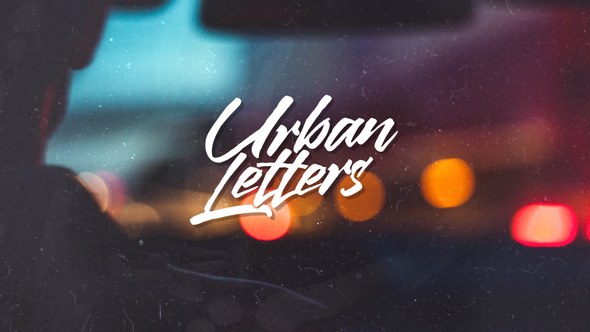
Urban - Animated Typeface
Urban is an animated Typeface that fits to many styles and is easy to work with. In the preview you see several examples of usage. If you like to buy the title projects shown in the preview, check out Urban+
Unlike other Animated Typefaces, you don’t need to drag each letter on it’s own into the timeline, you can actually write your text on a controls-layer and get the result right away. All driven by expressions. Also, to make it even more comfortable to work with, this project is compatible to the Script Characteristic
- Full Latin alphabet (Uppercase only)
- Digits 0-9
- Special Characters and Punctuation as shown in Preview